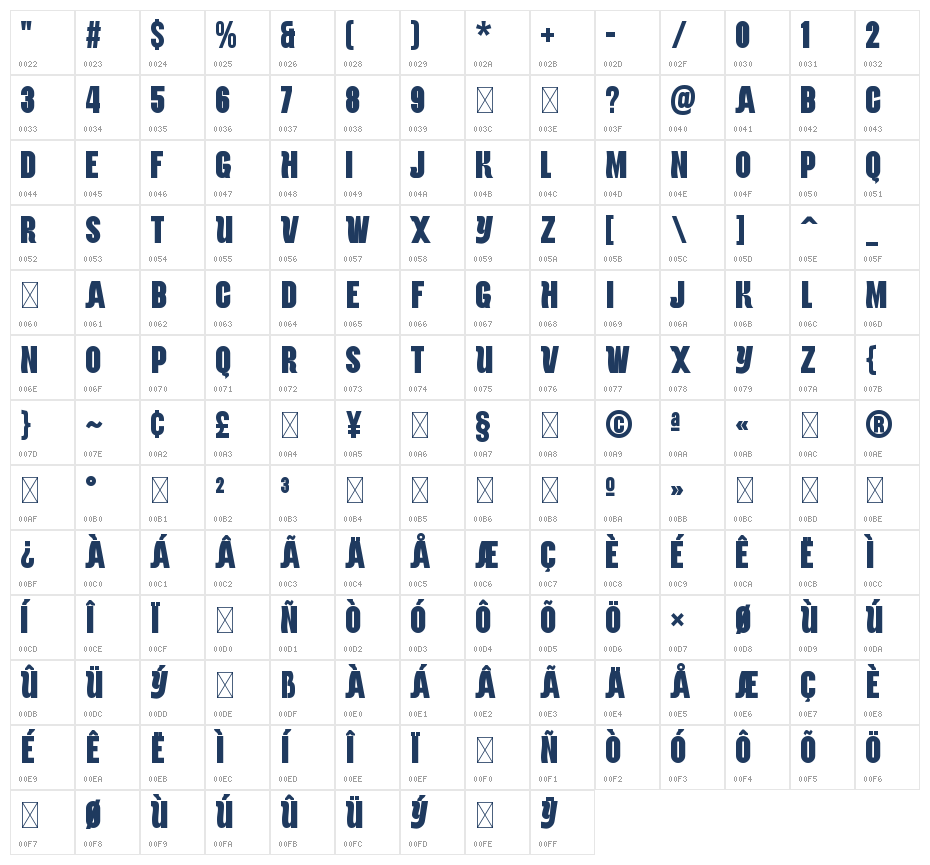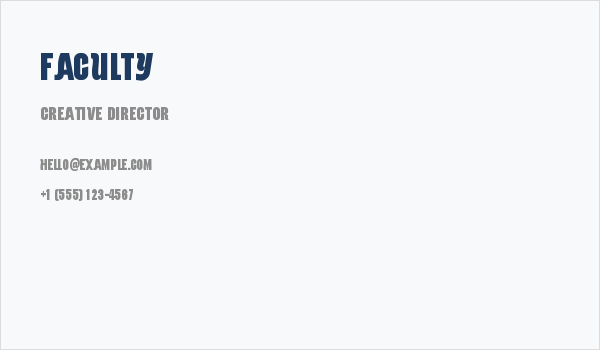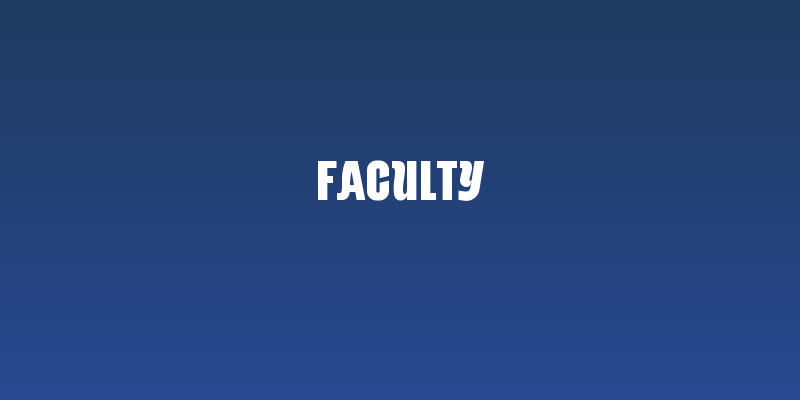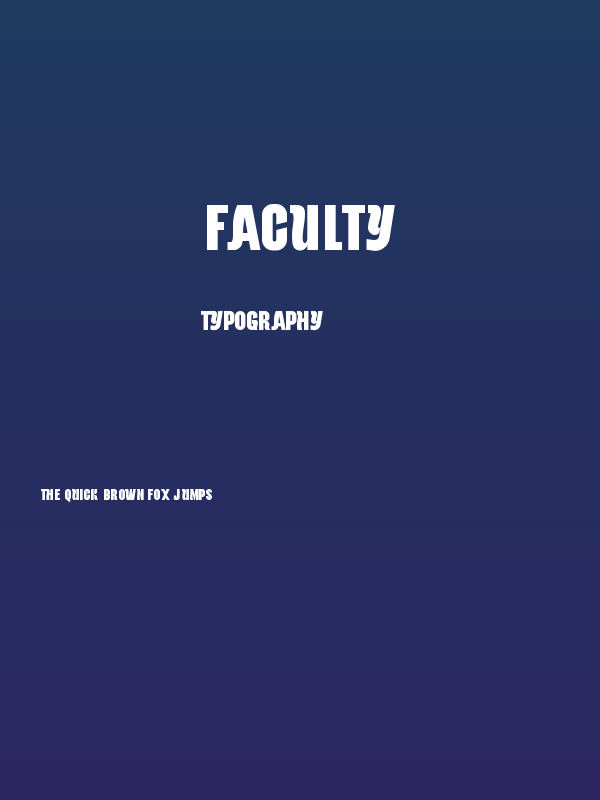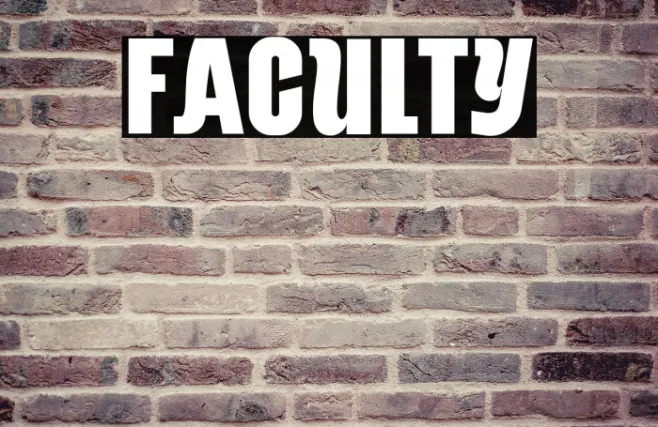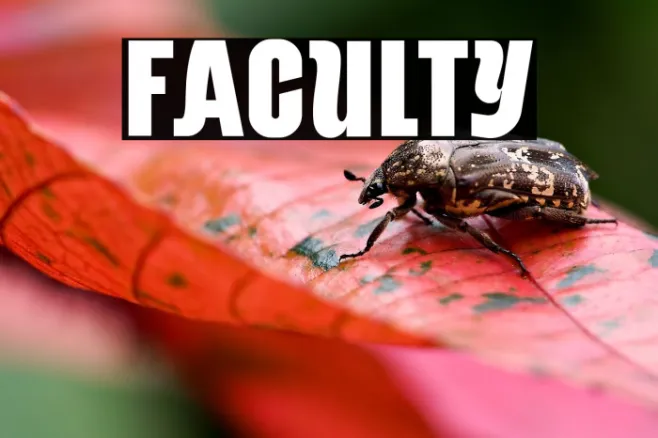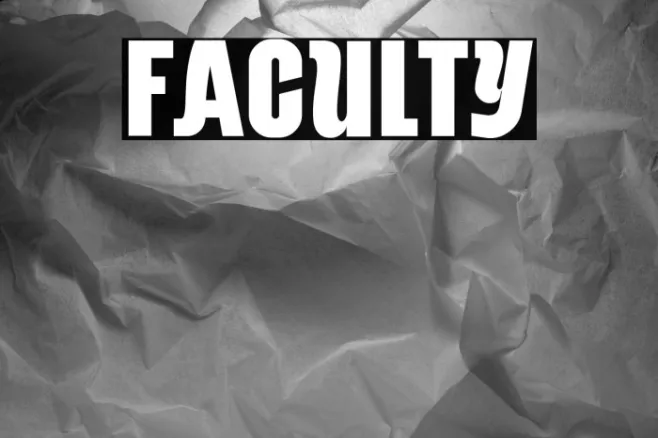
Faculty Font
Faculty Description
Bold, blocky, and playful sans-serif font with a slightly rounded and chunky appearance.
| Overall Style | Modern, Playful, Bold |